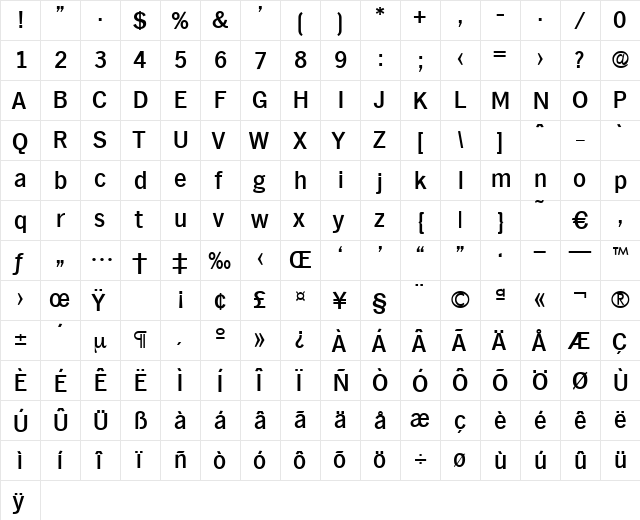
Hamburg-Medium Regular
Design Context for Hamburg-Medium Typeface
Hamburg-Medium takes a measured approach to typography — its balanced proportions and neutral character make it a reliable workhorse for both digital and print work.